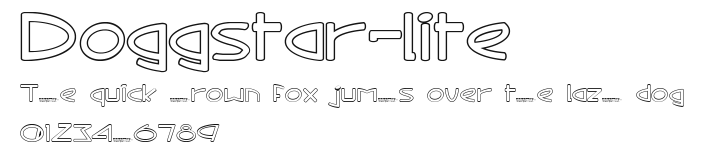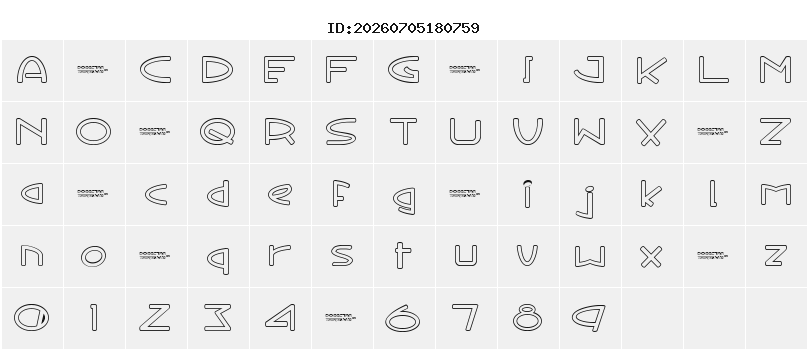
Doggstar-lite Preview
• Font Name: Doggstar-lite
• Font ID: Doggstar-lite
• Full Font Name: Doggstar-lite
About Doggstar-lite.ttf
Doggstar-lite.ttf is a modern, elegant sans-serif font designed for ultimate readability and visual harmony. Perfect for branding, headlines, web design, and print materials.